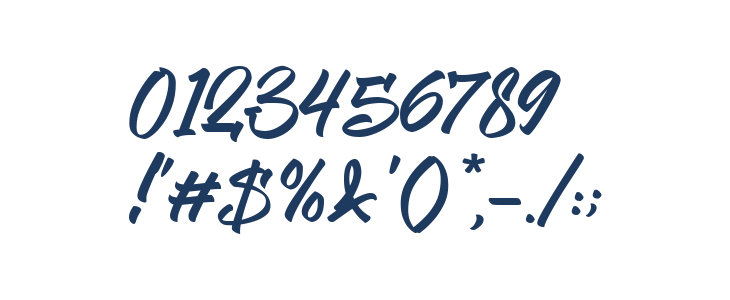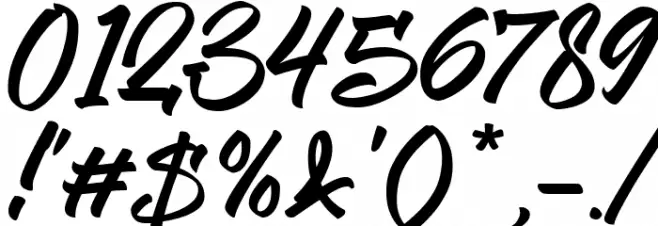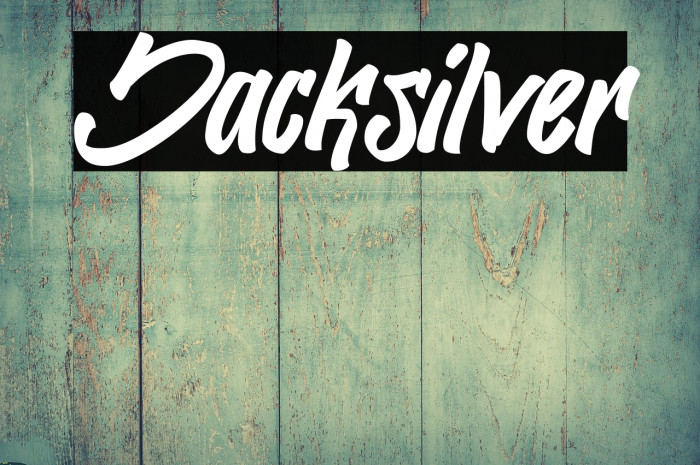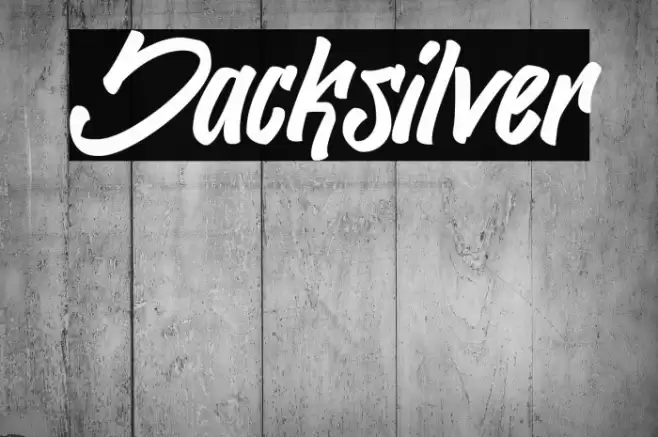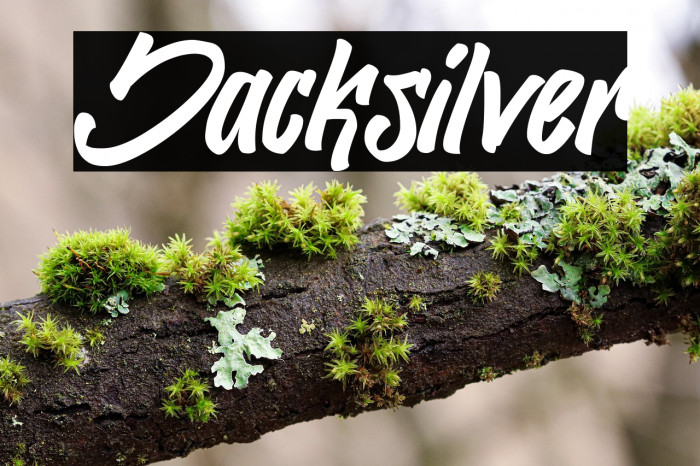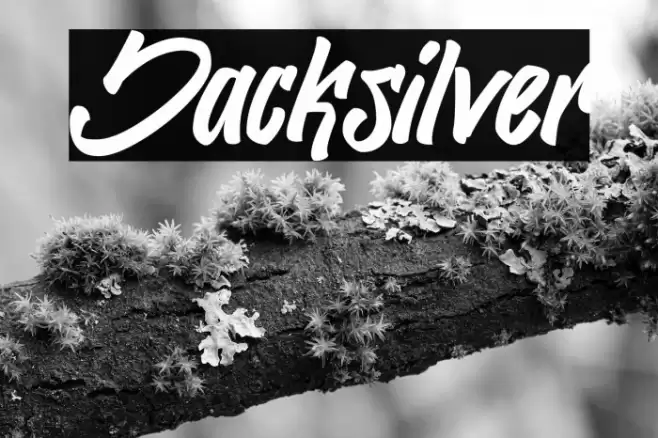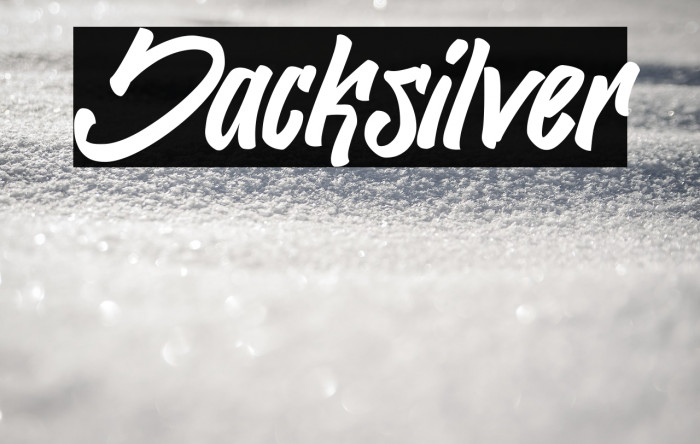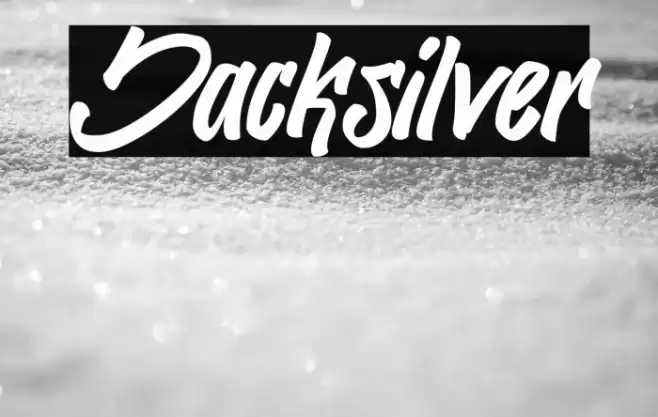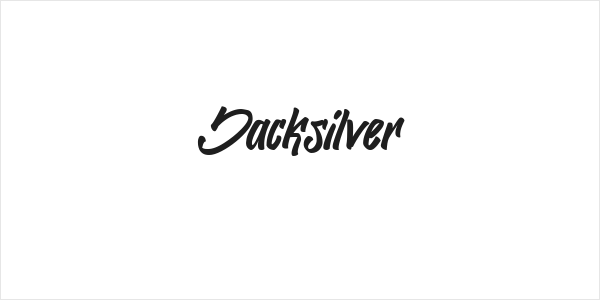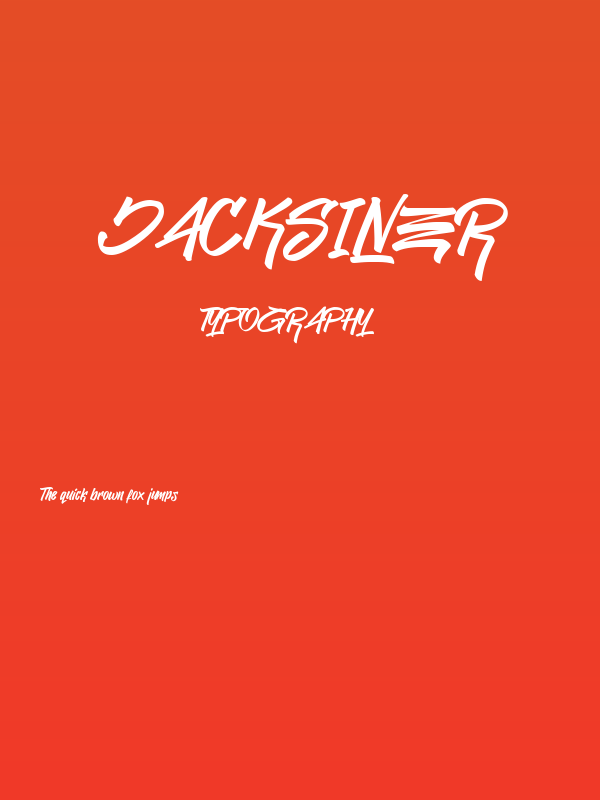
Jacksilver Font
Jacksilver Description
This font features a bold and dynamic script style, characterized by its fluid and energetic strokes. The letters are interconnected, giving it a sense of movement and rhythm. The uppercase letters are particularly striking, with dramatic flourishes and a slightly slanted orientation. The lowercase letters maintain the same energetic flow, with some characters extending below the baseline, adding to the font's lively appearance. The numerals and special characters are equally bold, ensuring consistency throughout the typeface. This font's overall aesthetic is modern and expressive, making it suitable for projects that require a strong visual impact.
| Proposed Projects | Ideal for branding, logos, posters, and any design project that requires a bold and energetic script style. |